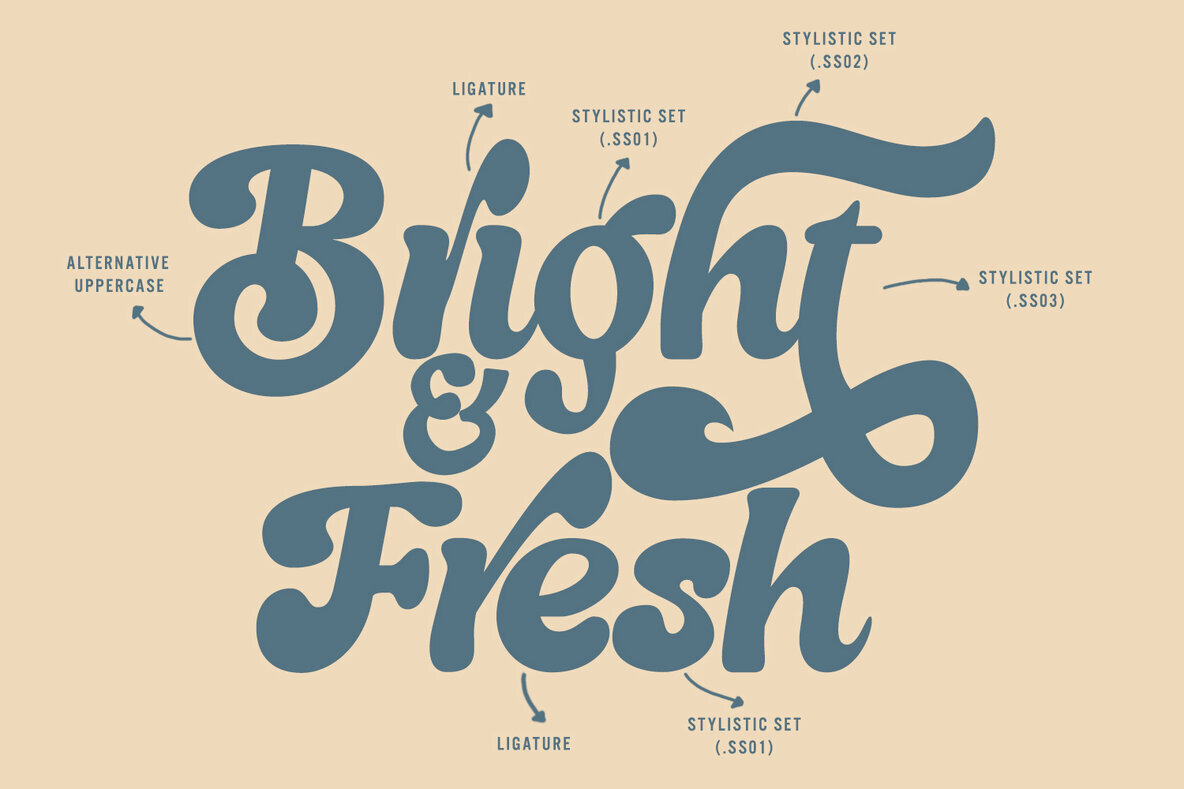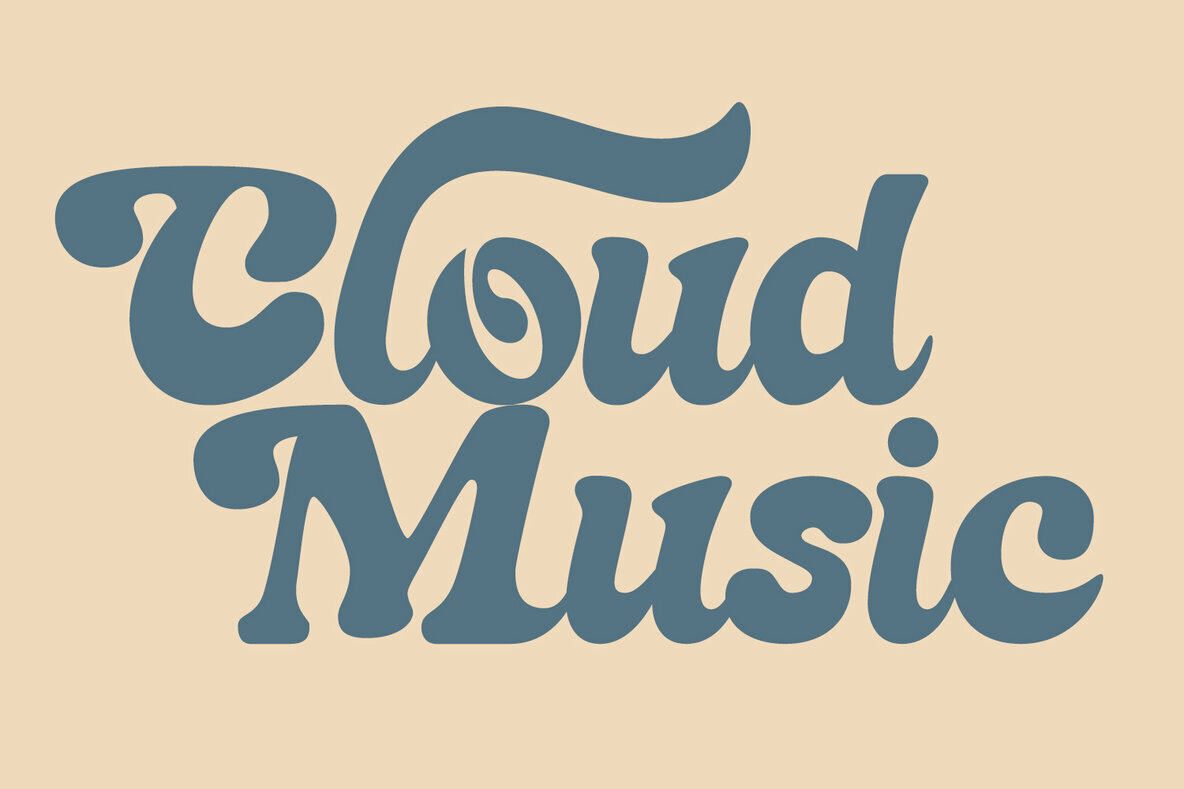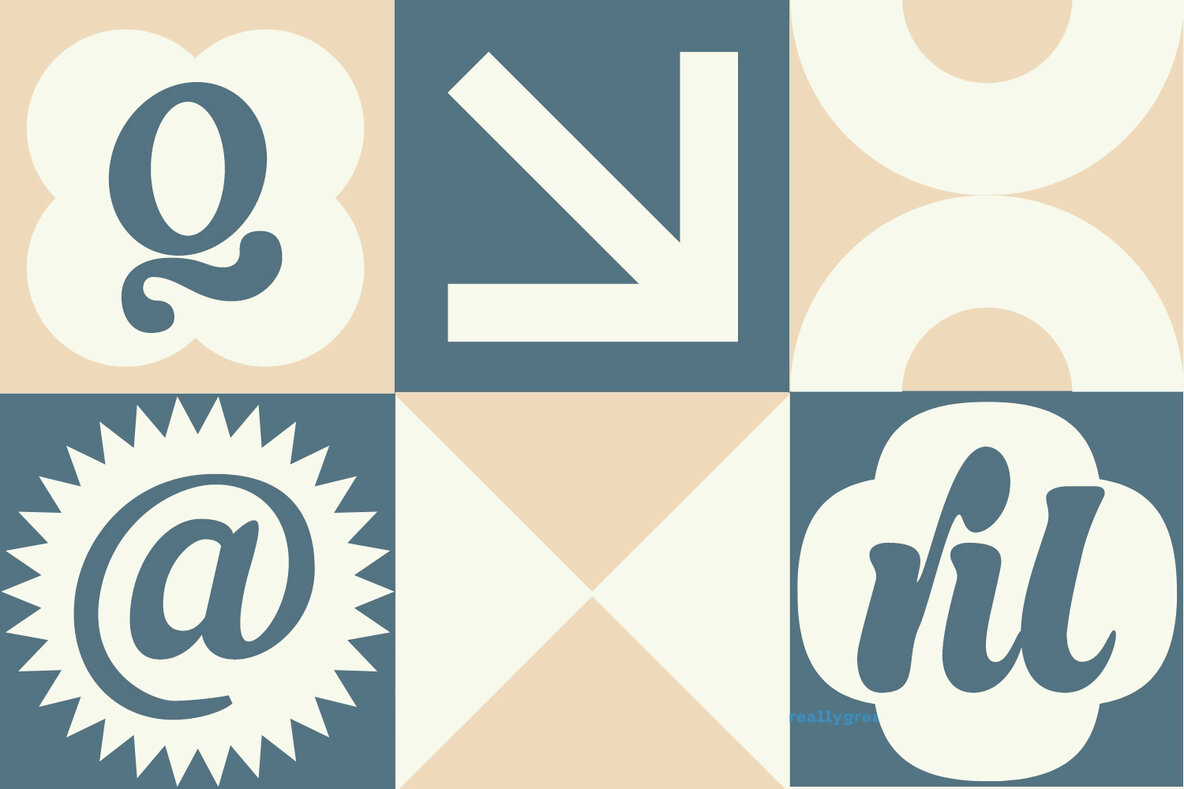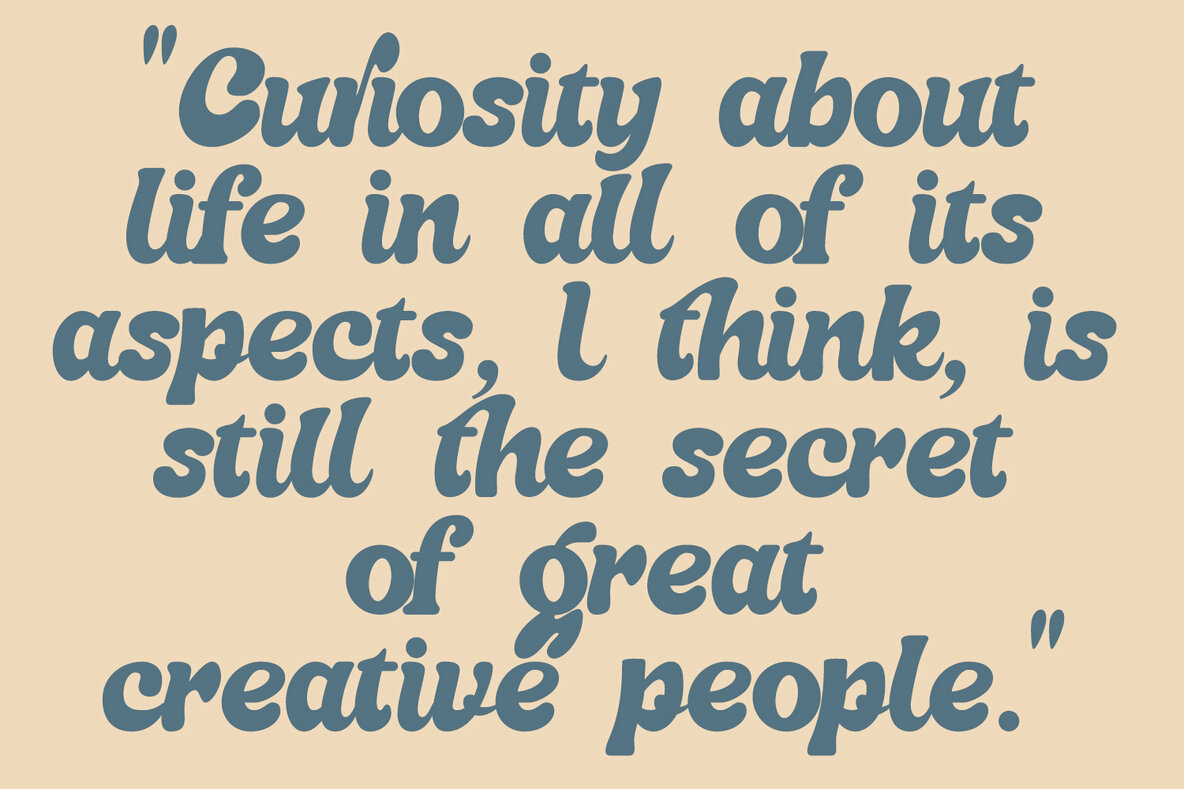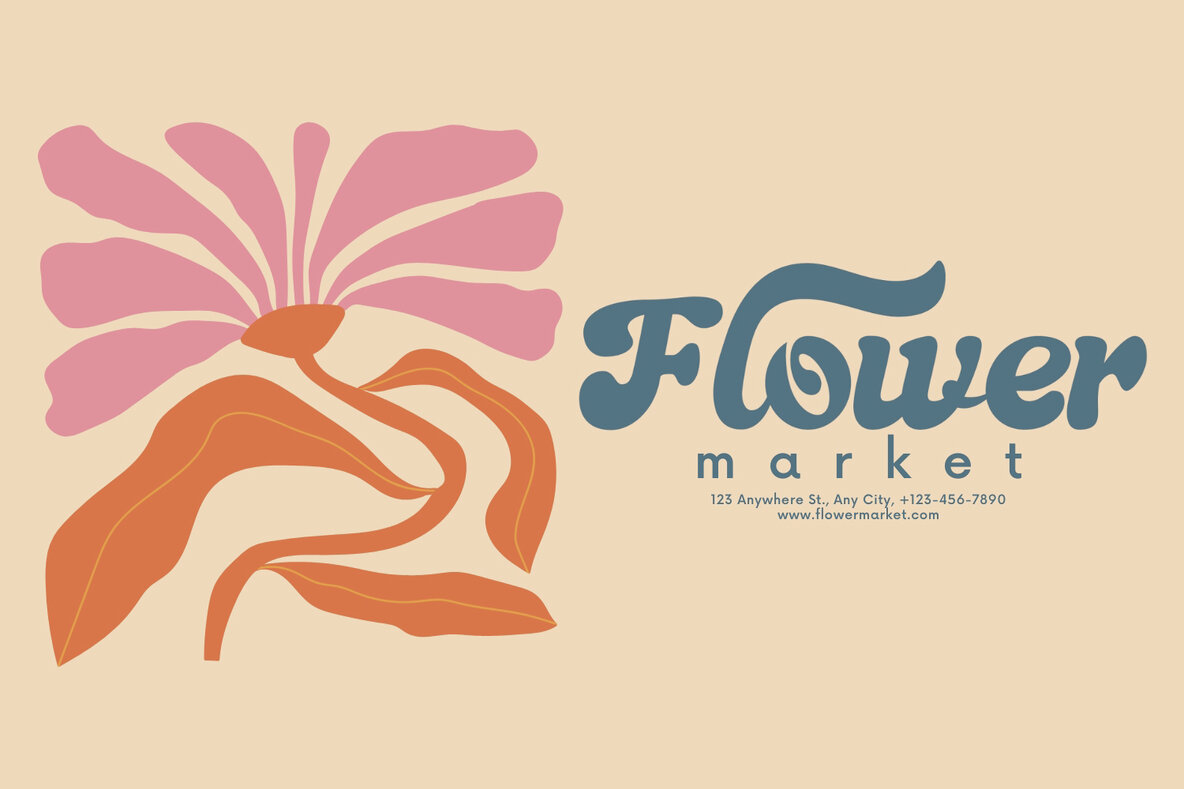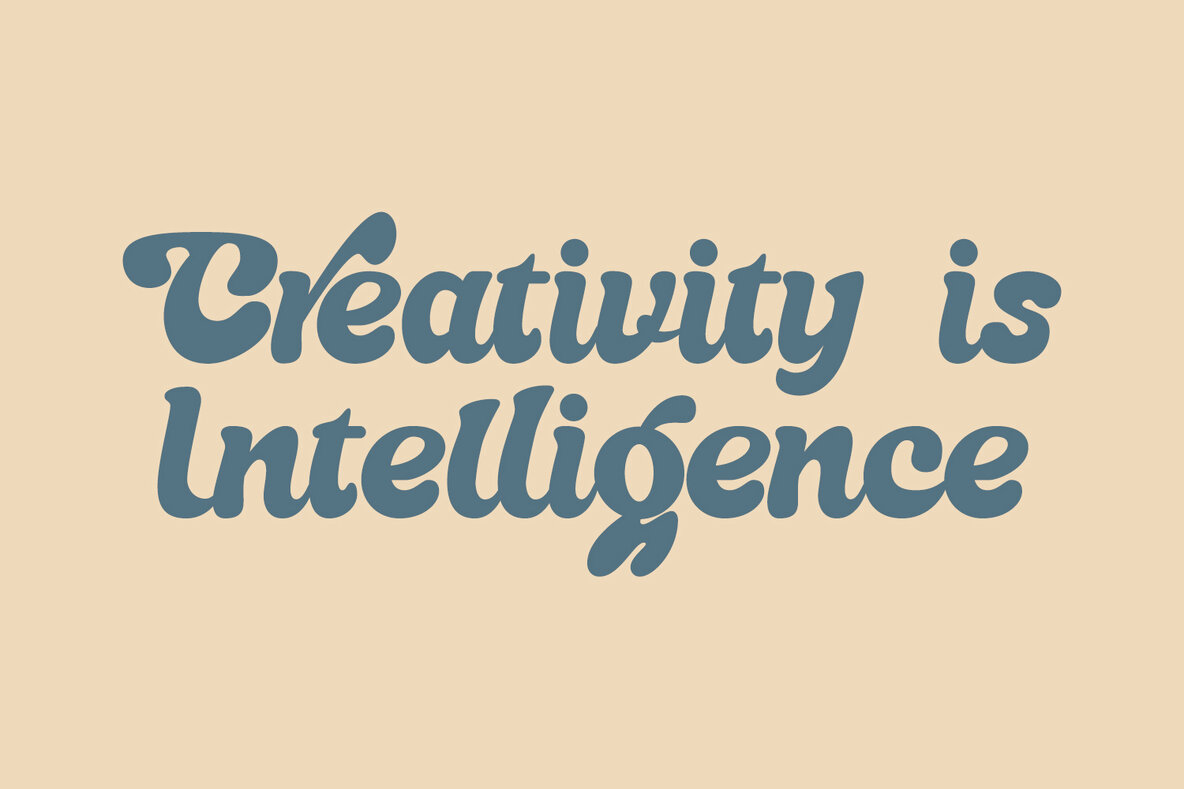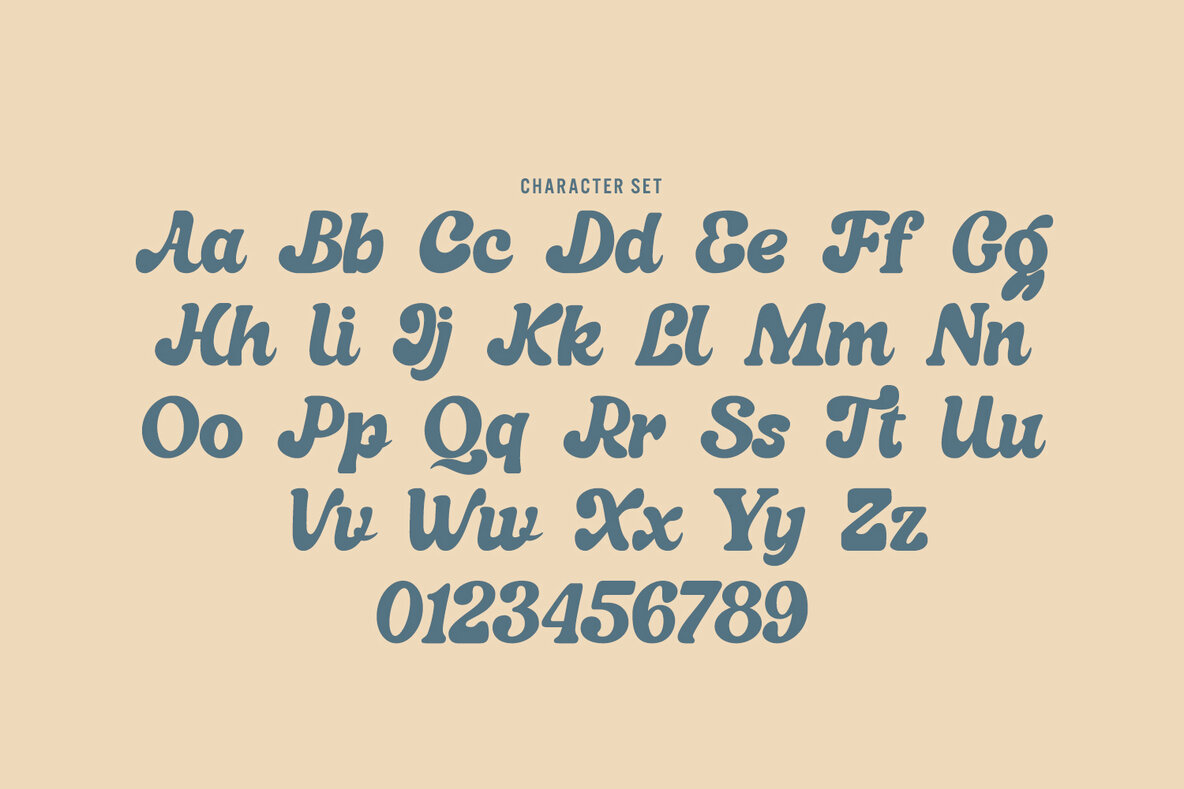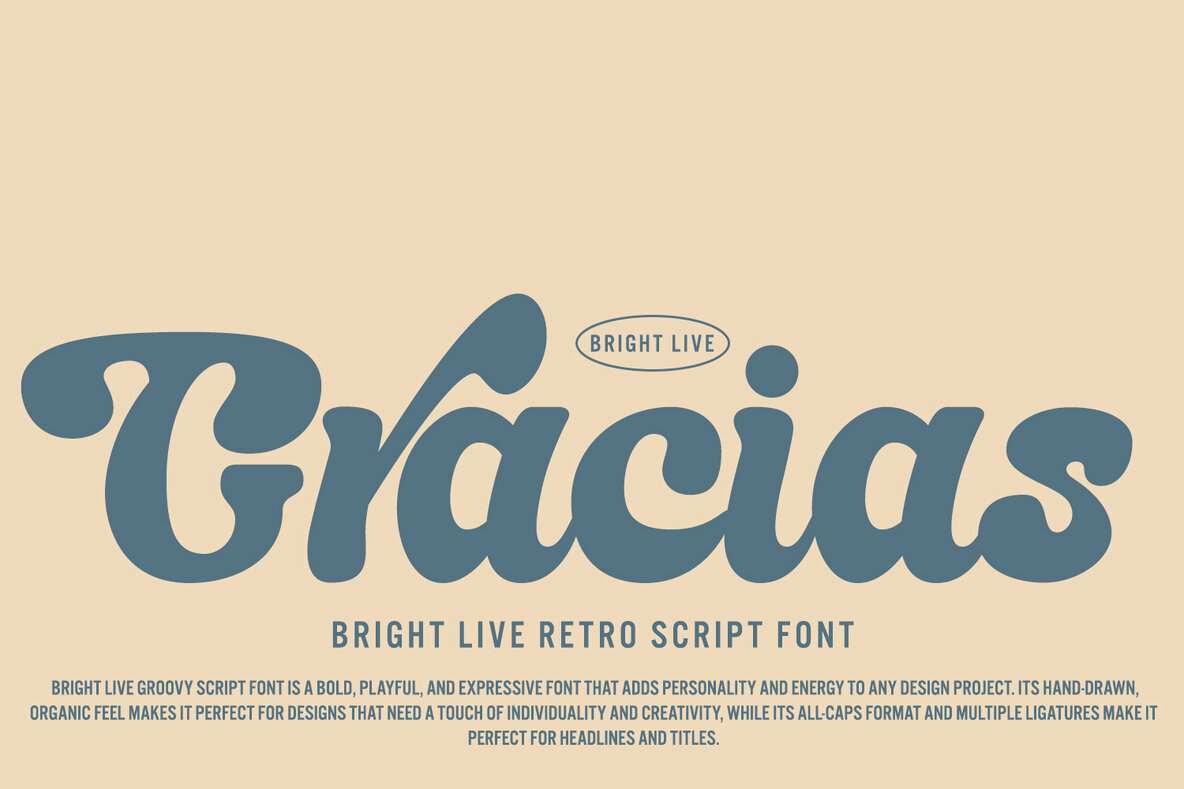
Bright Live Retro Script font is a vintage-inspired typeface that is perfect for creating classic design projects. Its elegant and curvy handwritten style makes it ideal for conveying a sense of nostalgia and timeless sophistication. This font is available in both regular and bold weights and includes uppercase and lowercase letters, numbers and punctuation symbols. Some of its features include: Overall, Bright Live font is a perfect choice for designers who want to create a vintage feel in their design projects. Its handwritten style, bold and regular weights, and range of symbols and numbers make it a versatile and reliable font for any design project.